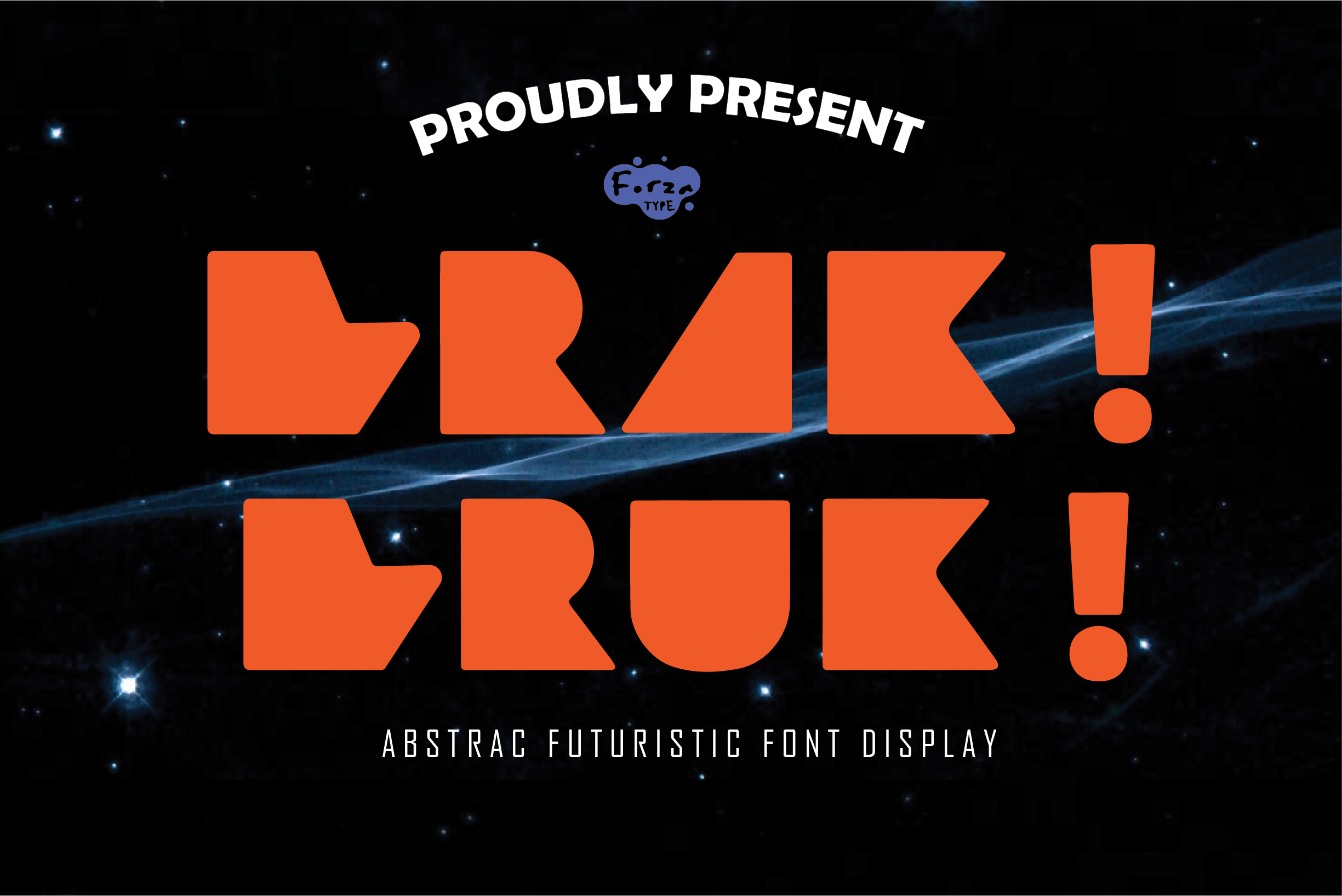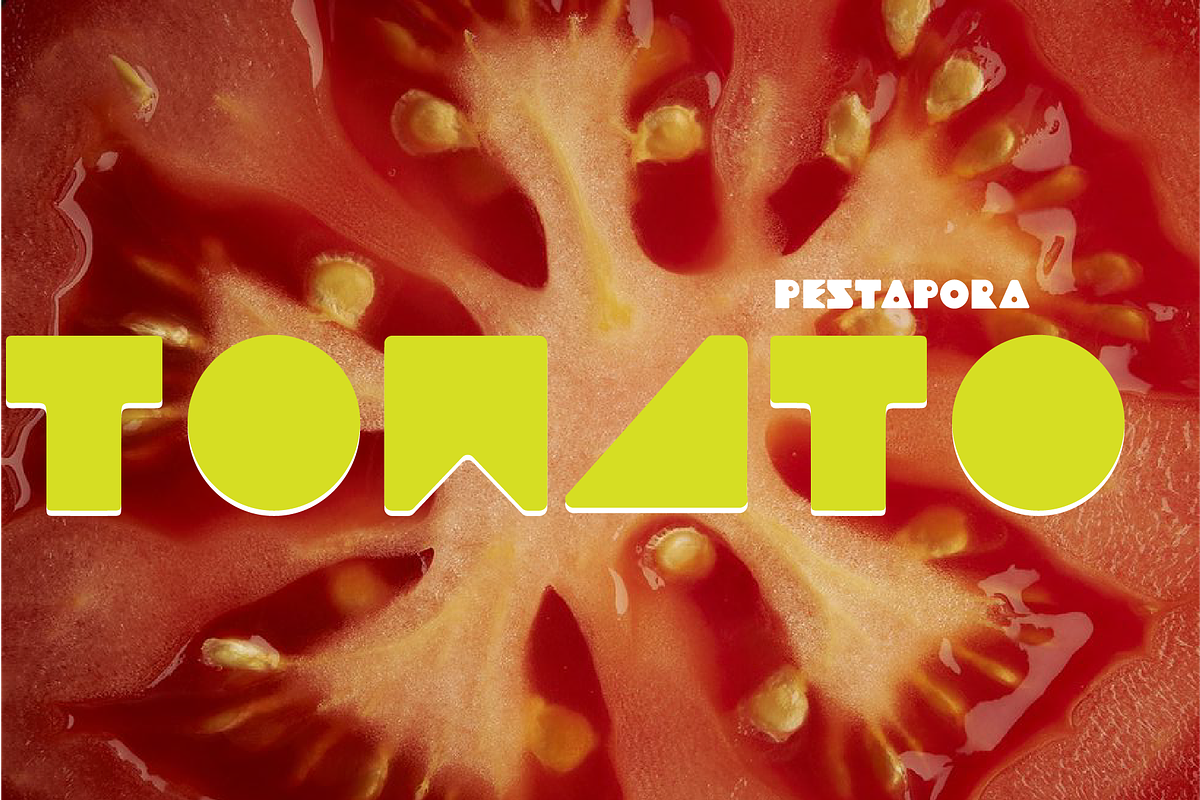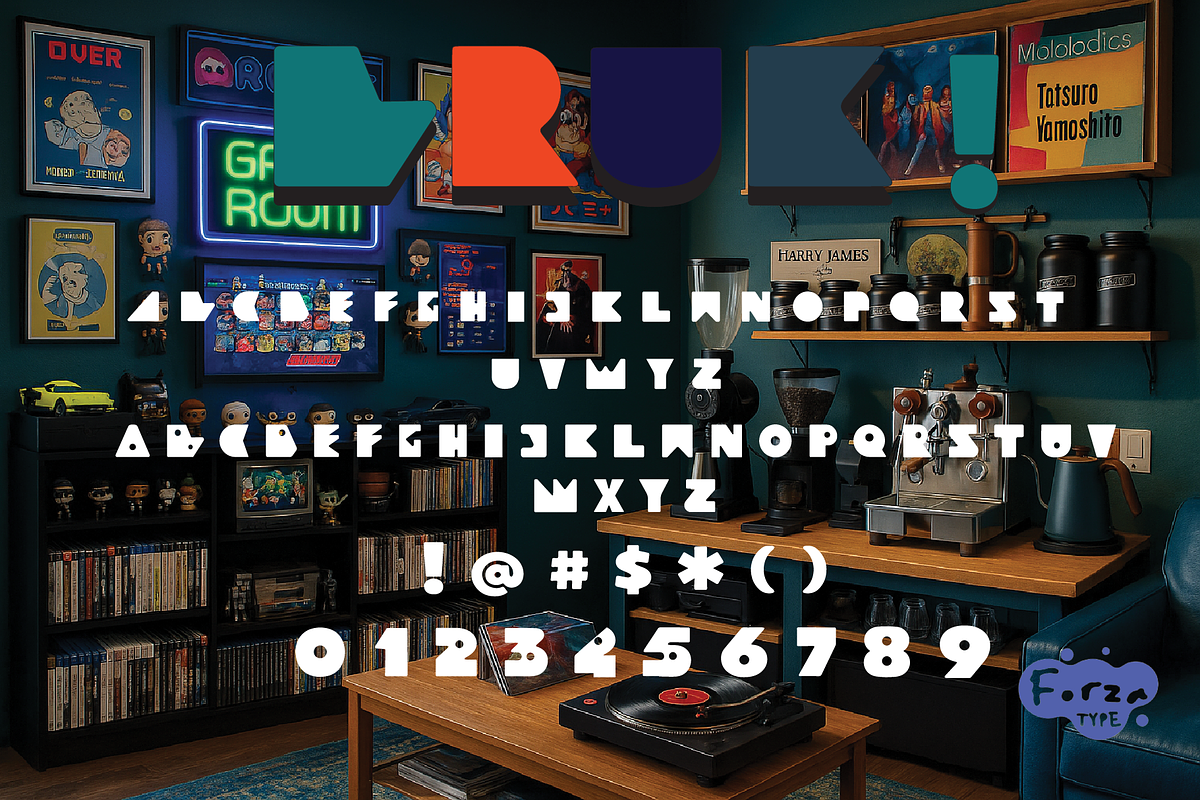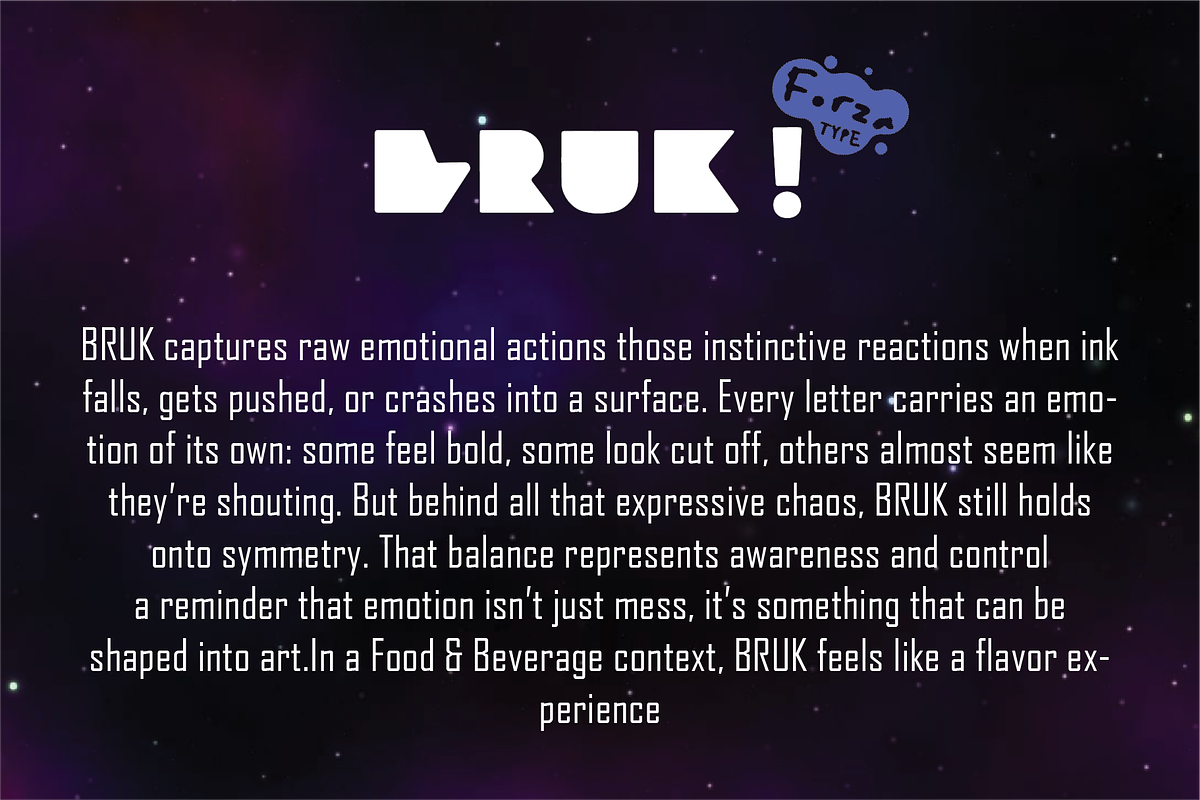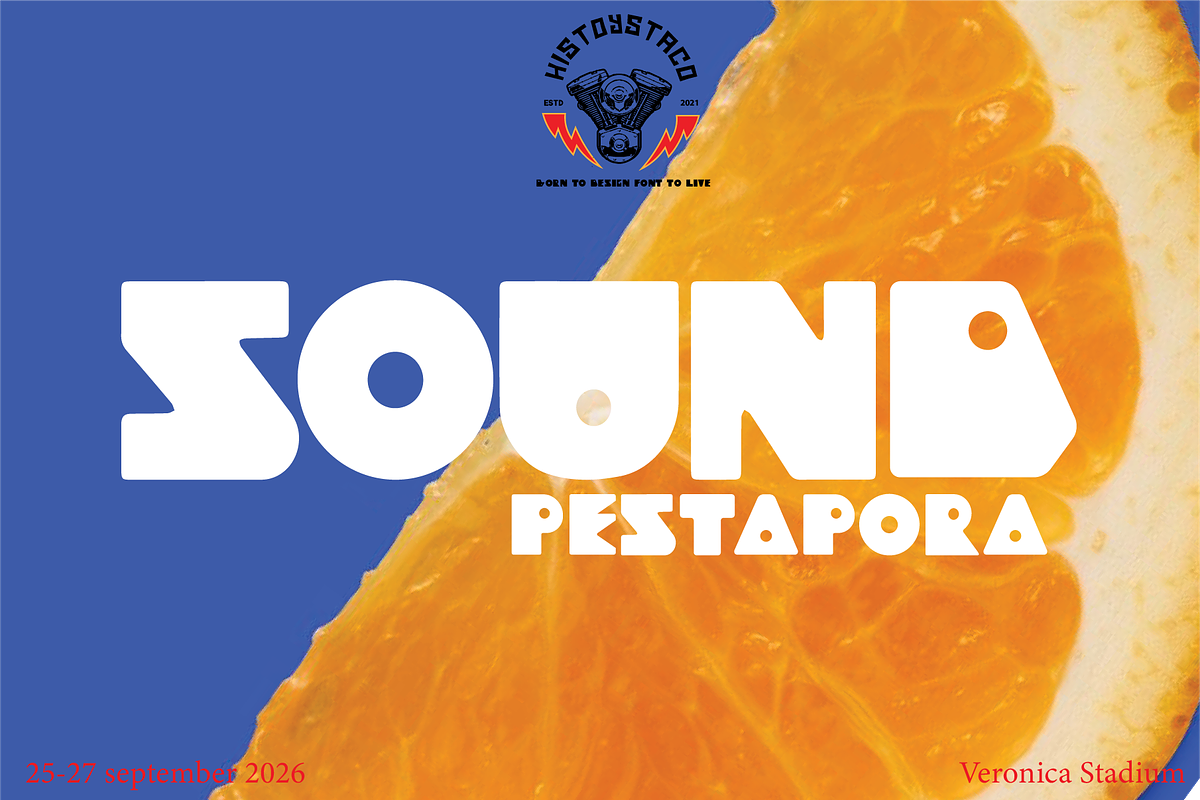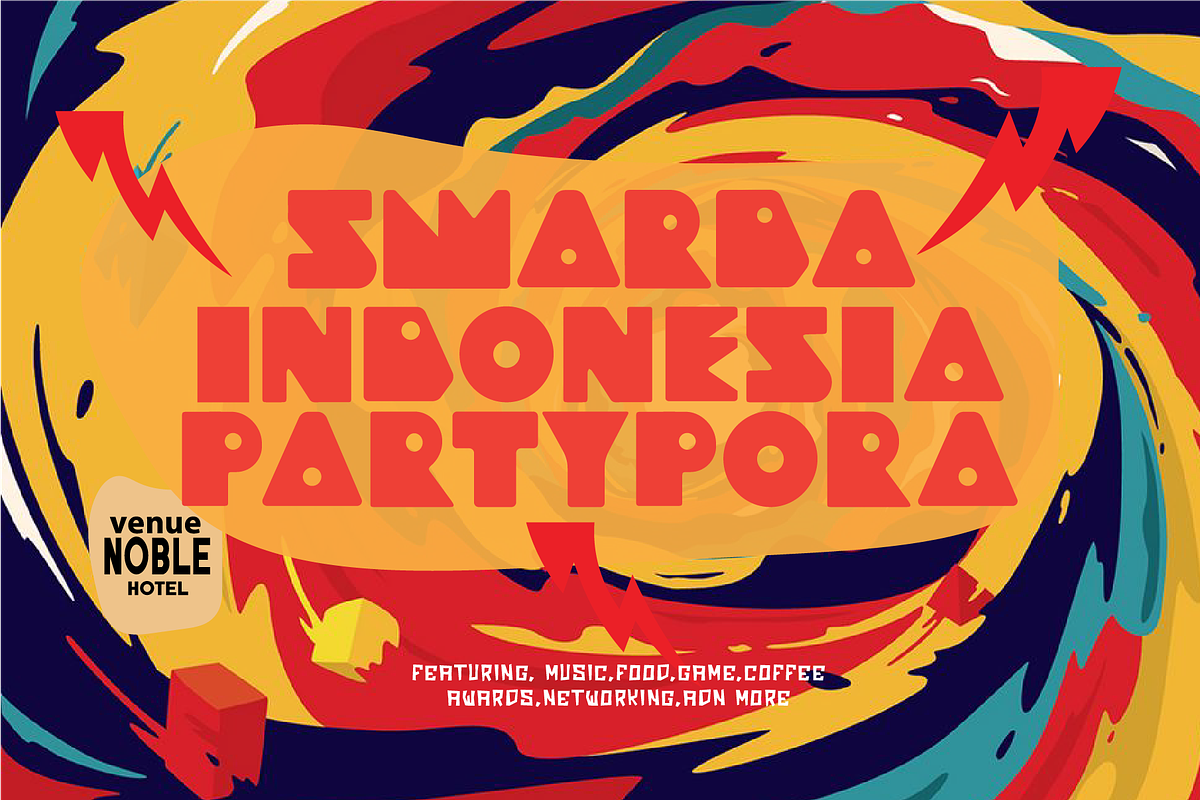
BrakBruk Font
BRUK BRAK FONT - A Modern Futuristic Typeface
BRUK BRAK FONT is a bold display font built from strong geometric shapes and distinctive decorative cuts. Designed for headlines and large-scale visuals, it brings a confident, modern look that instantly stands out. Each letter feels solid and intentional, with rounded corners and clean curves that balance experimental style with readability. The sharp cuts in its anatomy add a futuristic edge, giving the font character without making it feel overdone.
Why choose BRUK BRAK FONT ?? Thick, bold forms with high contrast,Strong visual impact at large sizes,Consistent as a display type system, Modern, confident, and statement-driven
Perfect for: Posters and headlines ,Branding and display logos,Album covers, events, and editorials,Futuristic, modern, and experimental designs